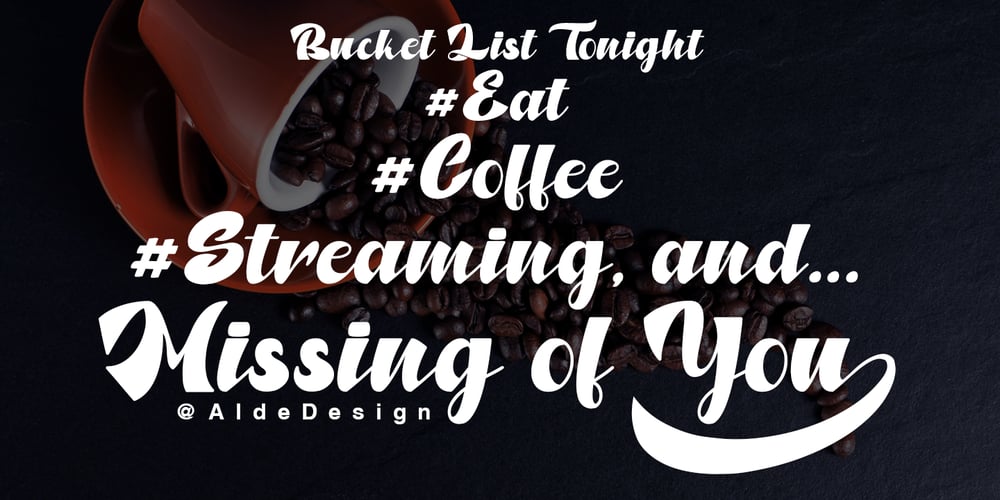
North Blue Font Family was designed by Alde Saputro and published by Aldedesign. North Blue contains 2 styles and family package options. North Blue is a new, stylish and quirky script. It was created to look as close to a readable script as possible, and includes great swash characters too.